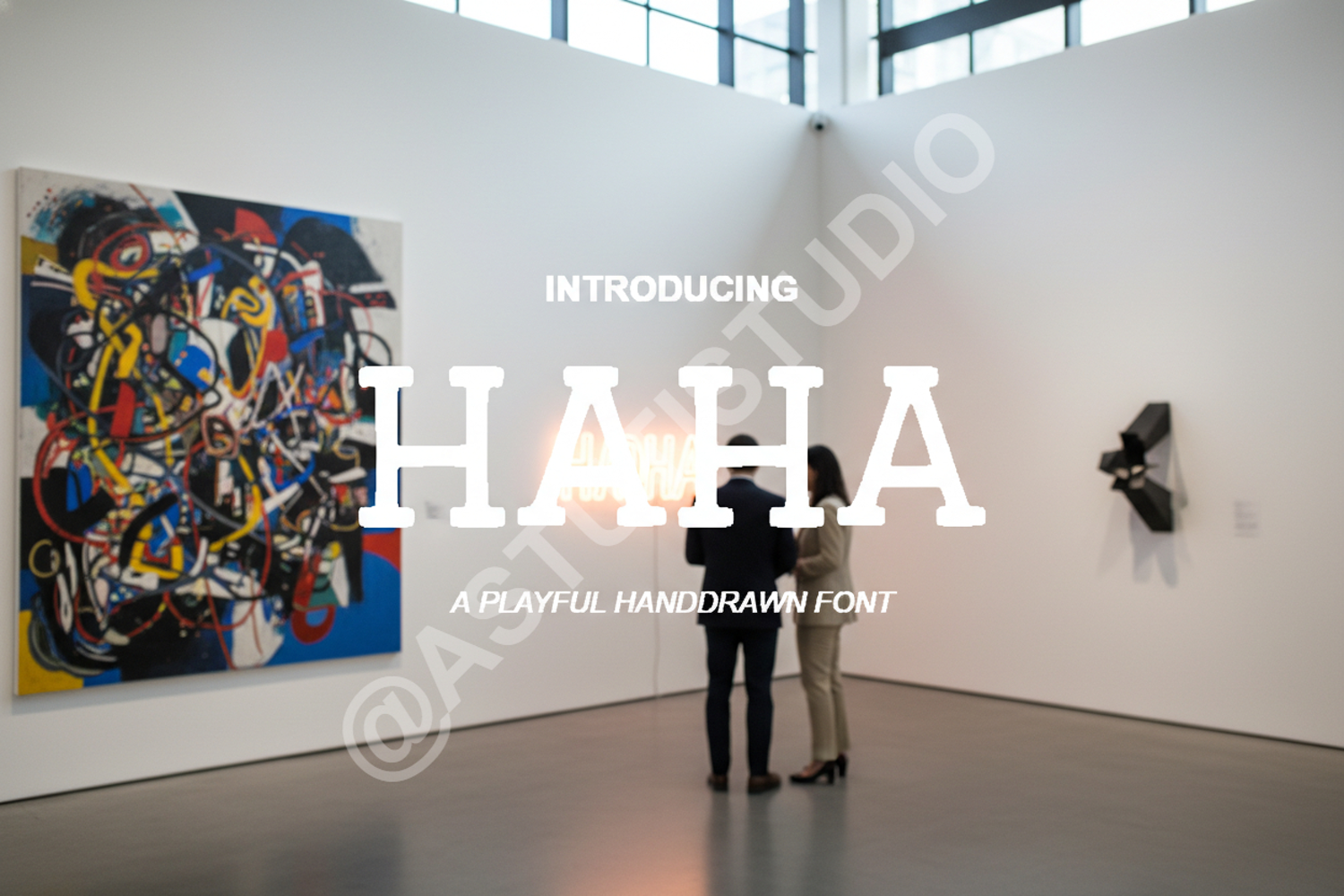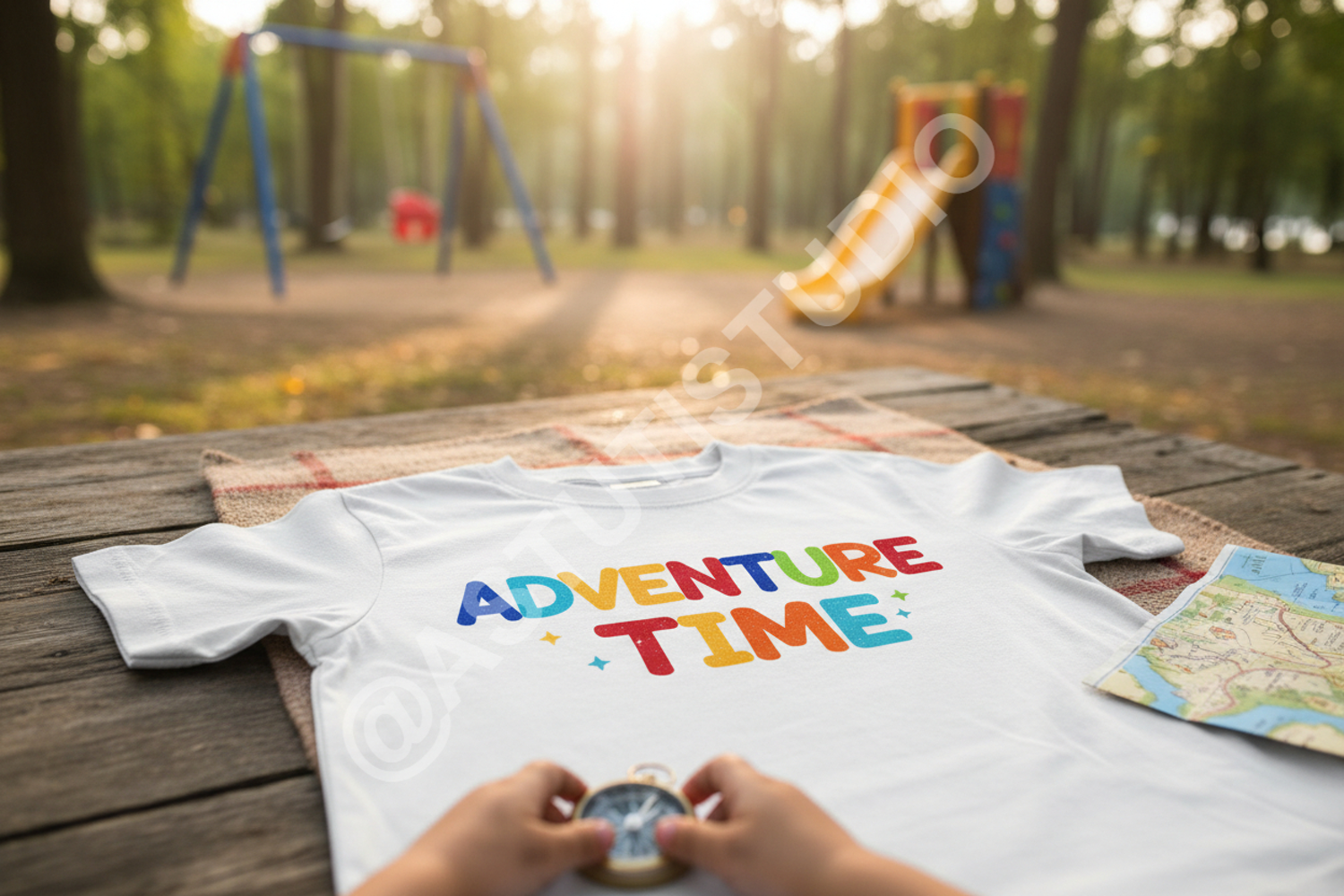
Haha | Playful & Modern Display Typeface
Haha
Elevate your design game with Haha, a premium display font that perfectly balances playful energy with modern sophistication. Crafted with meticulous attention to detail, Haha is designed to stand out, making it an ideal choice for creators looking to add a unique personality to their work. Whether you are aiming for a friendly vibe or a bold statement, this font delivers exceptional clarity and style.
- Branding and Identity: Create memorable logos and brand marks that resonate.
- Social Media: Design eye-catching Instagram posts, stories, and YouTube thumbnails.
- Packaging Design: Perfect for product labels, boxes, and merchandise.
- Editorial Projects: Use for bold headlines in magazines, posters, and flyers.
- Children's Content: Ideal for storybooks, school projects, and toy packaging.